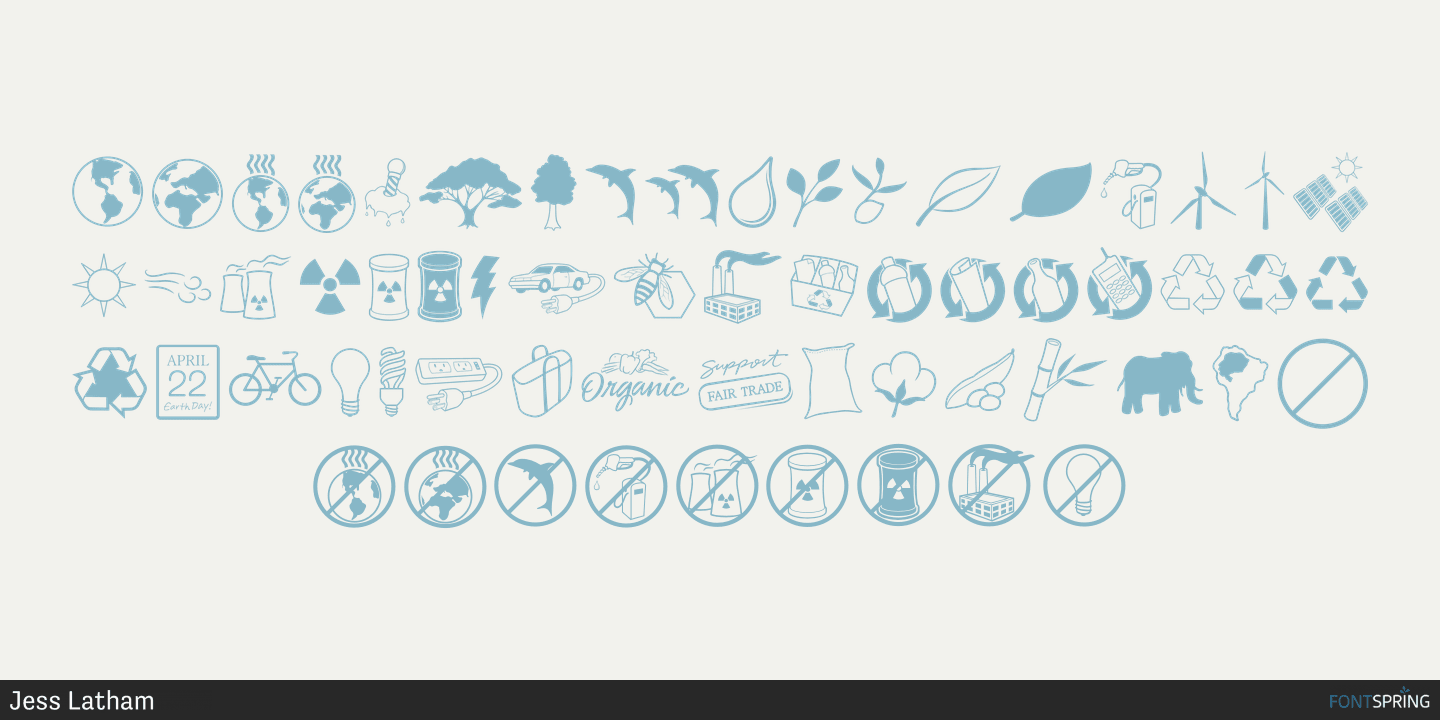
Save Her
Save Her is a dingbat font published by Blue Vinyl Fonts.
Save Her showcases many enviromental issues that we are facing today. Included in this dynamic clipart font are such topics as: global warming, green energy sources, organic produce, recycling, going green, fair trade, etc. Contains a total of 52 pieces.